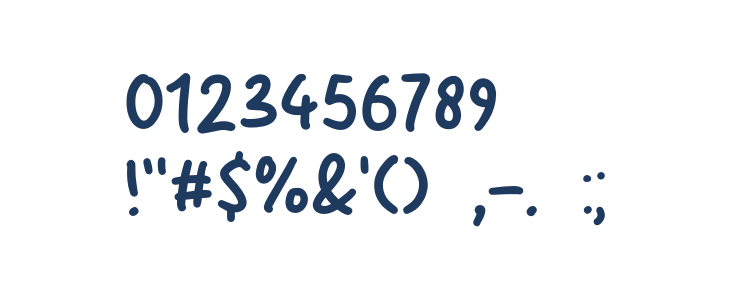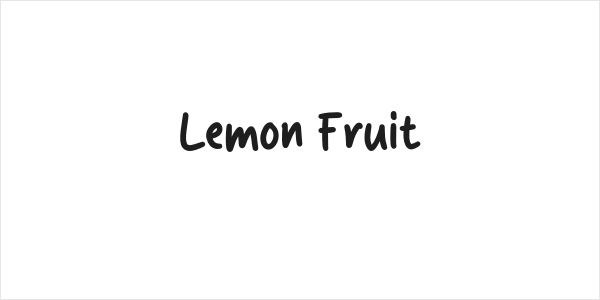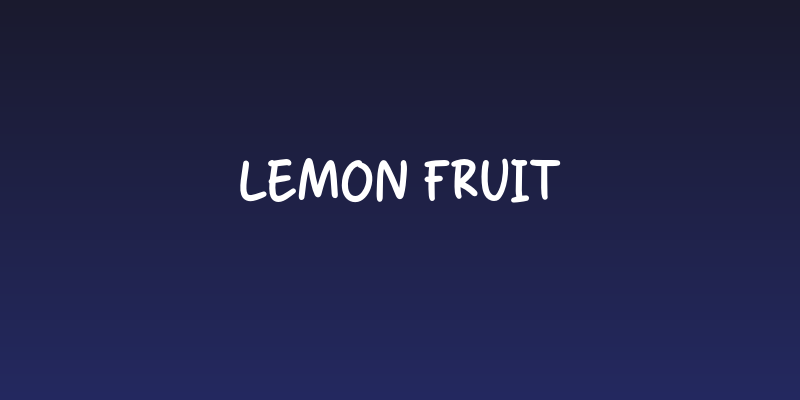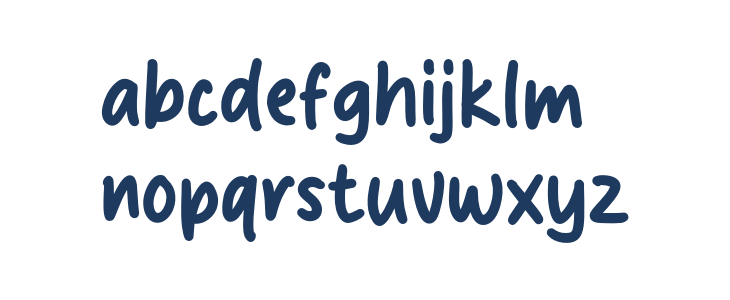
Lemon Fruit Font
Lemon Fruit Description
This font exudes a playful and casual vibe, characterized by its handwritten style that mimics the natural flow of a marker or brush pen. The letters are bold and rounded, with a consistent thickness that gives it a friendly and approachable appearance. The uppercase and lowercase letters maintain a uniform height, contributing to its legibility. Numbers and special characters are designed with the same playful touch, ensuring a cohesive look across all text. This font is ideal for projects that require a personal and informal touch, such as children's books, greeting cards, or playful branding.
| Overall Style | Casual |
| Use Case | Headlines, Logos, Informal text |
| Proposed Projects | Ideal for children's books, greeting cards, playful branding, and informal invitations. |